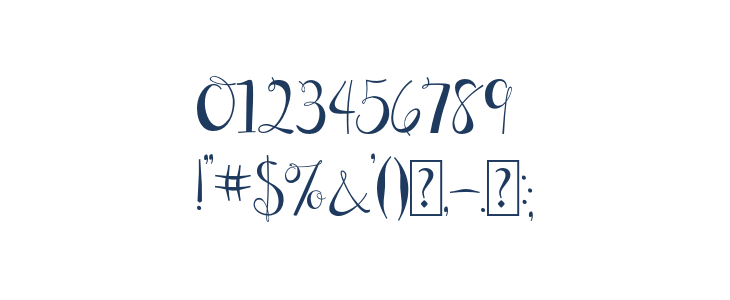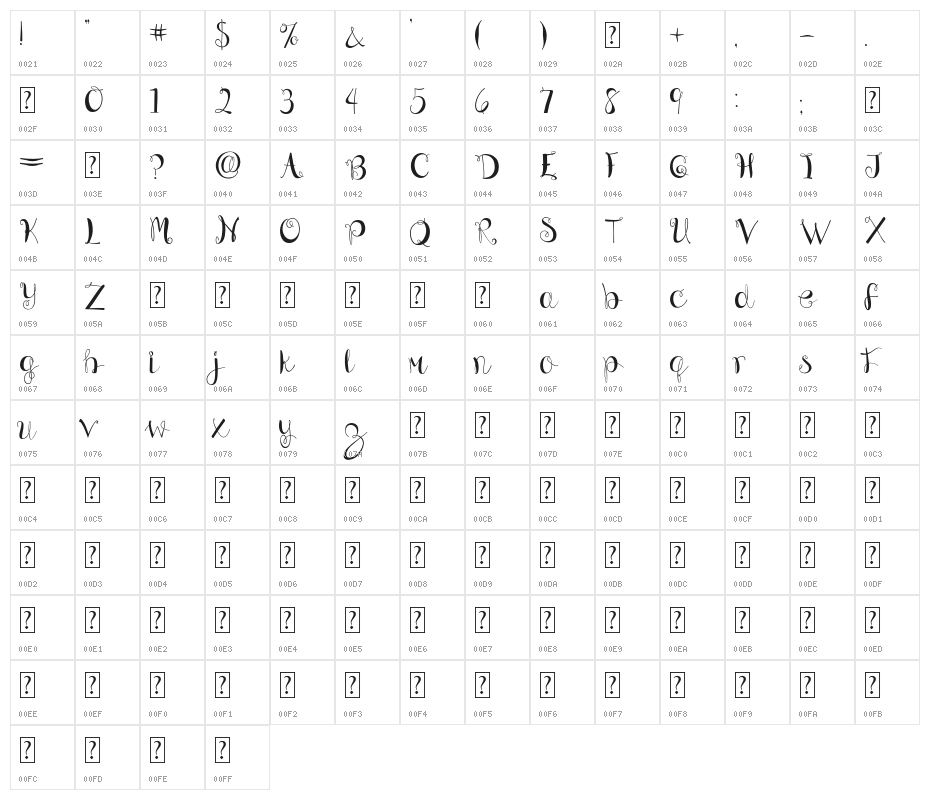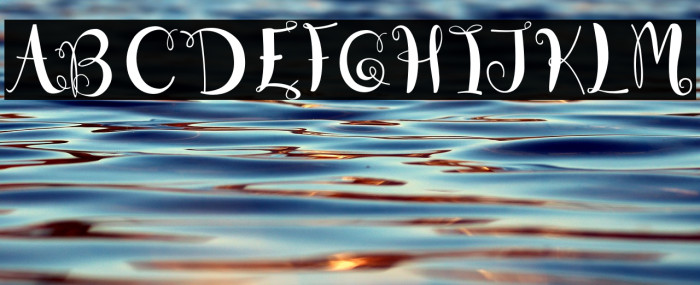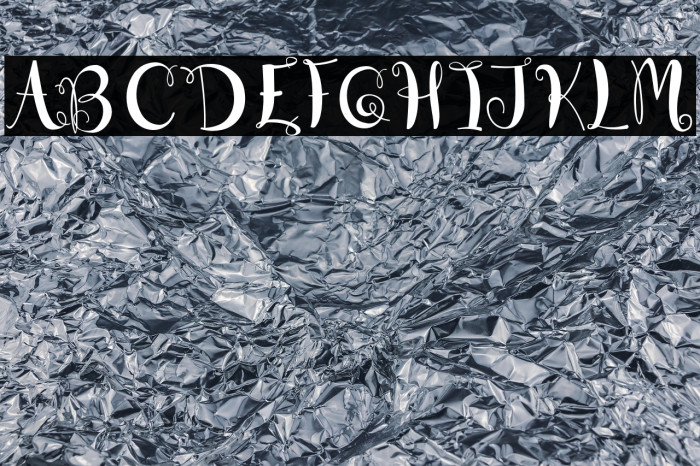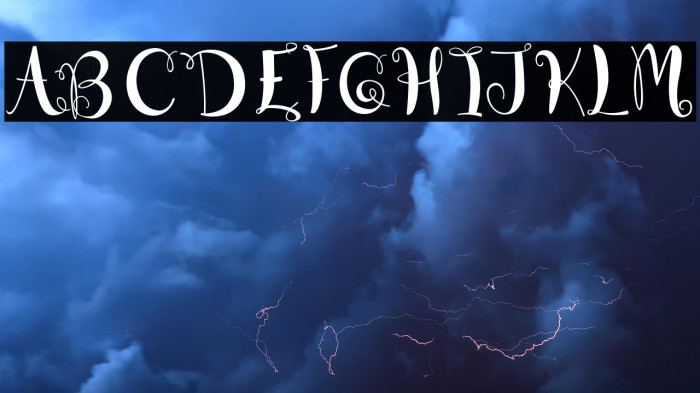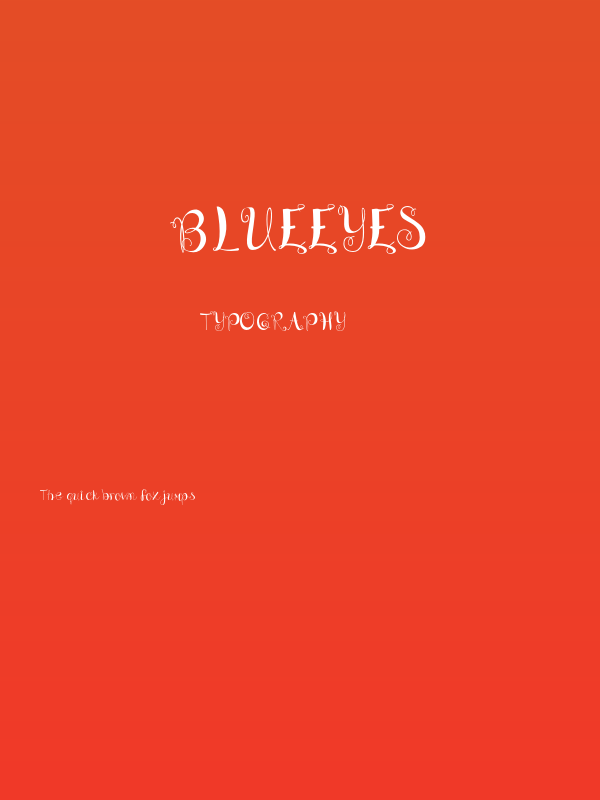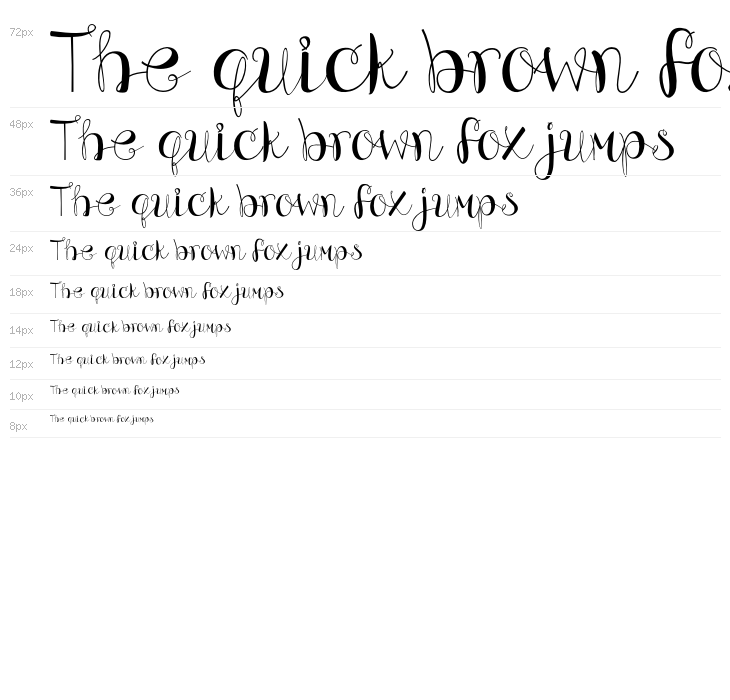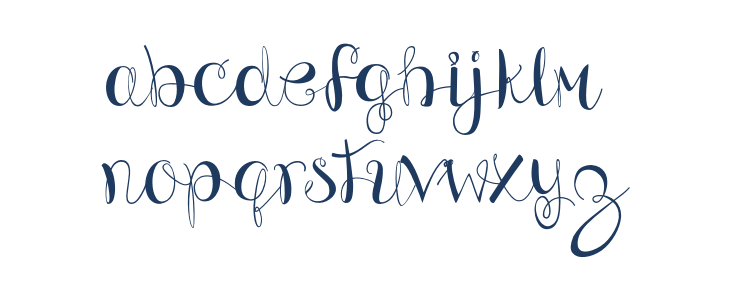
BlueEyes Font
| Caso d'uso | Logos, Invitations, Decorative Text |
| Progetti proposti | Ideal for wedding invitations, greeting cards, branding, and decorative posters. |